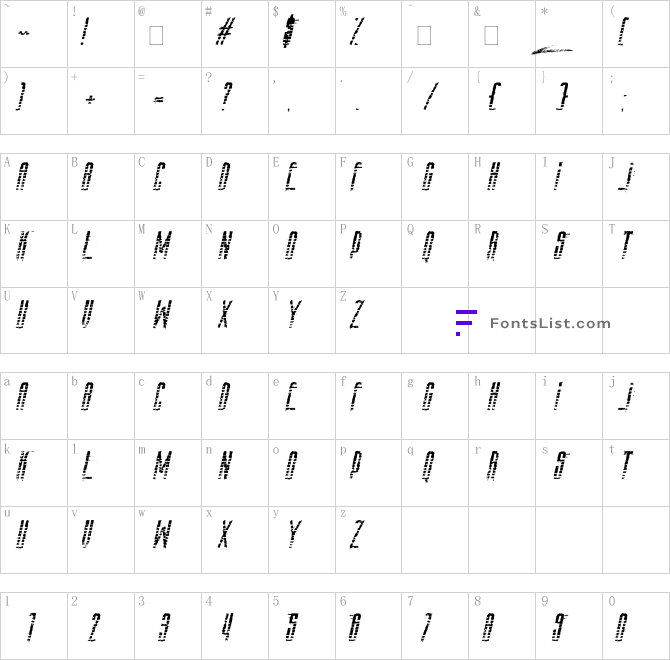
- Font Name:AmazS.T.A.L.K.E.R.Italic
AmazSTALKERItalic.ttf is a very beautiful artistic font, AmazSTALKERItalic.ttf is widely used in the design and printing of various books and pictures,AmazSTALKERItalic.ttf has a strong visual impact,AmazSTALKERItalic.ttf is a commonly used font in newspapers, magazines and books, and is used in posters, e-commerce Poster design, store design, logo design, font design and other fields.AmazSTALKERItalic.